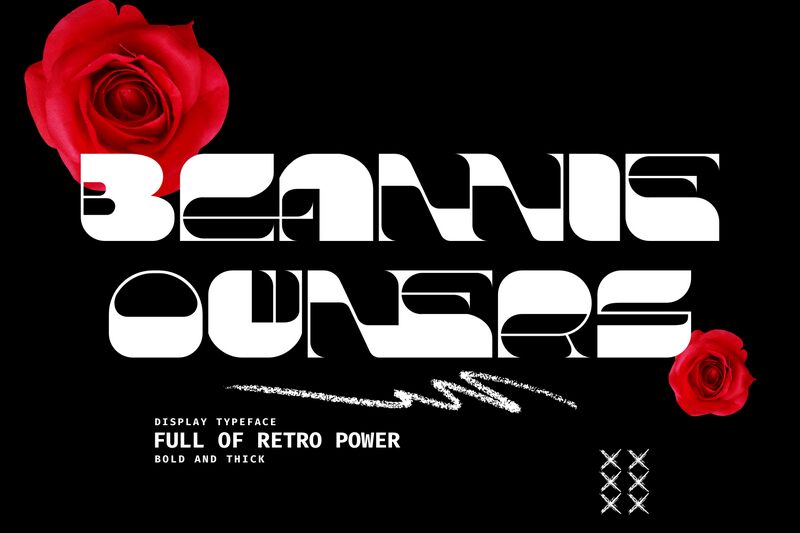
Beannie Owners Demo Regular
Beannie Owners, a groovy typographic creation by 177Studio, is a display font that exudes an aura of bold creativity. With its extra-bold weight and expanded width, this font commands attention and anchors any visual composition with confidence. The curvaceous lines and playful swirls hark back to the vibrant aesthetics of retro design while maintaining a fresh modern edge.
The Beannie Owners font is more than just letters on a page; it's an expressive tool for designers looking to inject personality and flair into their work. Ideal for eye-catching headlines, dynamic logos, or spirited advertising campaigns, its unique character ensures that any message stands out with style. Whether you're aiming for nostalgia or pushing the envelope in contemporary design, Beannie Owners offers versatility and visual impact that can elevate your creative projects to new heights.